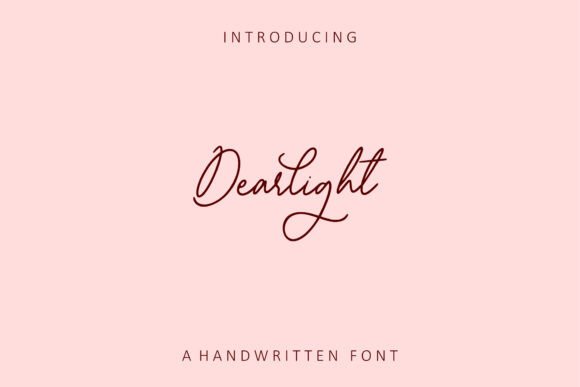
Introducing Dearlight Font: The Epitome of Elegance and Romance
In the realm of typography, few fonts capture the essence of heartfelt emotions and gentle elegance as Dearlight Font does. This beautiful, handwritten script font is designed to bring a touch of romance and sophistication to any design project. With its flowing curves and delicate strokes, Dearlight is perfect for those looking to add a personal and elegant charm to their creations.
The Characteristics of Dearlight Font
Dearlight Font is a graceful handwritten script font that exudes warmth and intimacy. Its design is inspired by the gentle light that pours into our lives through heartfelt letters and loving words. The font features:
- Flowing Curves: Dearlight’s curves are smooth and fluid, creating a sense of movement and elegance.
- Delicate Strokes: The font’s strokes are gentle and refined, adding a touch of sophistication to any design.
- Handwritten Charm: Dearlight’s handwritten nature gives it a personal and unique feel, perfect for adding a touch of warmth to any project.
Uses of Dearlight Font
Dearlight Font is incredibly versatile and can be used in a variety of design projects, including:
- Wedding Invitations: Add a touch of romance and elegance to your wedding invitations with Dearlight Font.
- Love Notes: Express your feelings with Dearlight Font, perfect for writing love notes and romantic letters.
- Branding: Use Dearlight Font to create a feminine and elegant brand identity for your business.
- Feminine Logos: Dearlight Font is perfect for creating feminine logos that exude elegance and sophistication.
- Social Media Quotes: Add a touch of romance and inspiration to your social media quotes with Dearlight Font.
The Benefits of Using Dearlight Font
Using Dearlight Font in your design projects offers several benefits, including:
- Unique and Personal Touch: Dearlight Font adds a unique and personal touch to any design project.
- Elegance and Sophistication: The font’s elegant and sophisticated design makes it perfect for high-end branding and design projects.
- Emotional Connection: Dearlight Font helps create an emotional connection with your audience, perfect for building a loyal customer base.
- Versatility: The font’s versatility makes it suitable for a wide range of design projects, from wedding invitations to social media quotes.
Tips for Using Dearlight Font Effectively
To get the most out of Dearlight Font, follow these tips:
- Pair with Neutral Colors: Pair Dearlight Font with neutral colors to create a clean and elegant design.
- Use for Headings and Titles: Use Dearlight Font for headings and titles to add a touch of elegance and sophistication.
- Experiment with Ligatures: Experiment with Dearlight Font’s ligatures to add a touch of uniqueness to your design.
- Keep it Simple: Keep your design simple and clean to let Dearlight Font shine.
Dearlight Font is a beautiful and elegant handwritten script font that captures the essence of heartfelt letters and gentle light. With its flowing curves and delicate strokes, it brings a personal and elegant charm to any design project. Perfect for wedding invitations, love notes, branding, feminine logos, and social media quotes, Dearlight Font adds a touch of romance and sophistication wherever it’s used.